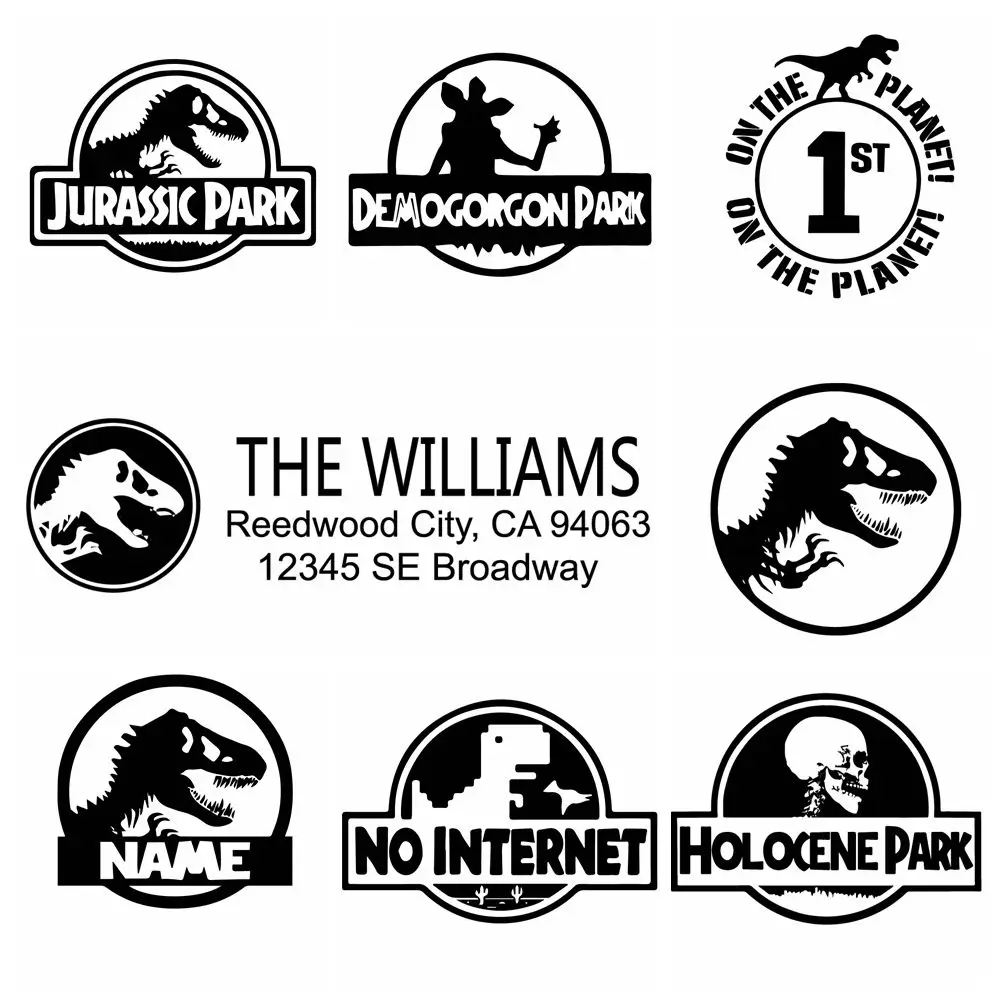
Jurassic Park Font Name
Jurassic Park Font is a font used for different movie posters, Headings, and places that need to be noticed The font used for the logo of Jurassic Park, an American fiction movie, is the same font It earned massive acknowledgment after the movie was released.
JURASSICTTF Download @fontface s Fancy Movies Outlined Character map Full font name Jurassic Postscript font name 26 Extended font information Platforms supported Platform Encoding Microsoft Unicode BMP only Macintosh Roman Font details Revision 1 Glyph count 85 Units per Em 4096. Jurassic Park is a 1993 American science fiction adventure film directed by Steven Spielberg and produced by Kathleen Kennedy and Gerald R Molen It is the first installment in the Jurassic Park franchise, and is based on the 1990 novel of the same name by Michael Crichton and a screenplay written by Crichton and David Koepp The film is set on the fictional island of Isla Nublar, located off. Jurassic Park fonts Related tags jurassic park primitive inline informal dinosaur decorative уже есть xmas xmas woodcut winter vacation tropical tiki summer stone age snowflake snow scrapbook saxon sansserif rustic runic runes p22.
Directed by Steven Spielberg With Sam Neill, Laura Dern, Jeff Goldblum, Richard Attenborough A pragmatic paleontologist visiting an almost complete theme park is tasked with protecting a couple of kids after a power failure causes the park's cloned dinosaurs to run loose. Nov 12, 19 The Jurassic Park font contains 68 beautifully designed characters ️ Customize your own preview on FFontsnet to make sure it`s the right one for your designs. Font Jurassic Park release note updateing s Jurassic Park , Film Himmel Jens R Ziehn , Movies TV , Famous , Jurassic Parkttf , jurassic_prevjpg , Windows font Characters sample.
Jurassic Park Font Features This can be a fancy, stylish, trend serif typeface that looks like a gucci font gets encouraged by means of a letters printable widespread journal logo Designers workforce working on it took a significant deal with the font paring and contrast matching for the period of the based font family. In this video,I am going to show you how to make a custom Jurassic Park Logo!Download Photoshop Touch(8 MB)http//bitly/17Ocp2cDownload Phontohttps//p. Jurassic Park Font Rate Free Fonts Menu;.